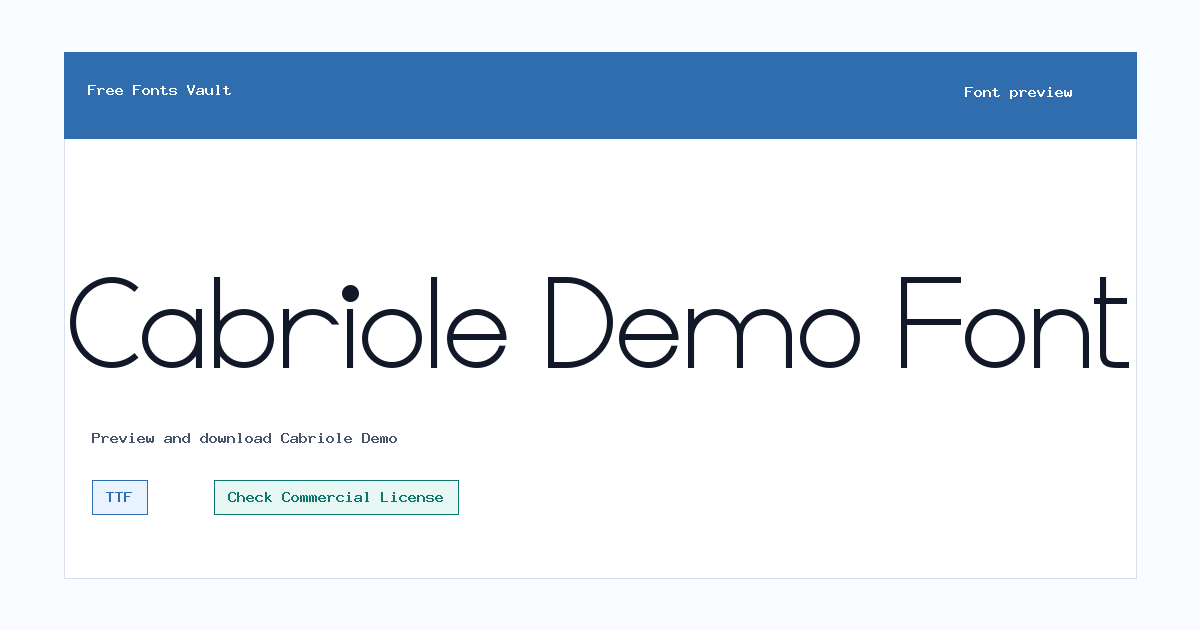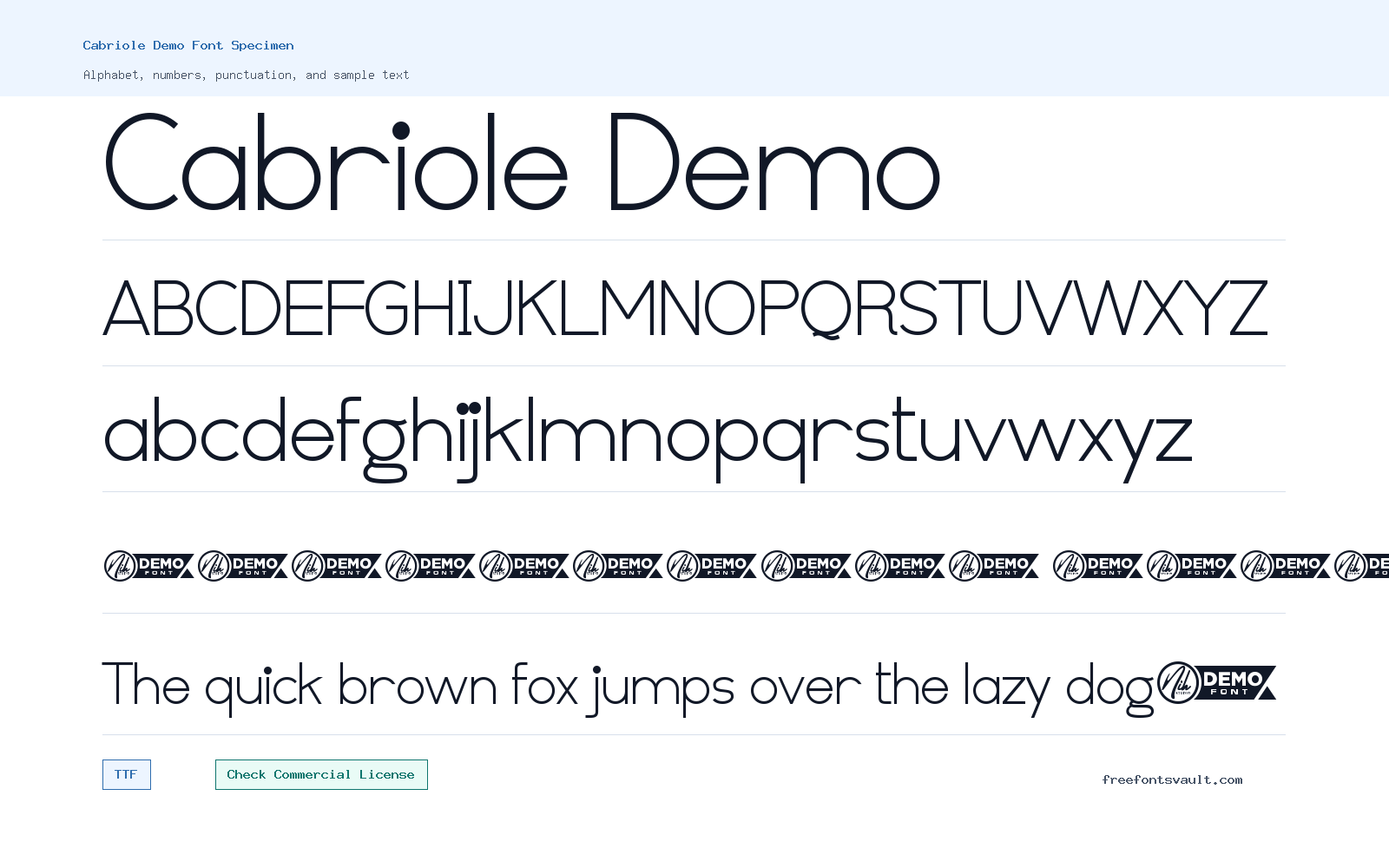
Cabriole Demo
- Designer Widiyanti & Suci Anita
- Foundry NihStudio
Cabriole Demo font.
Cabriole Demo is a TTF font family from NihStudio with regular, italic, and bold styles for personal, non-commercial projects.
About Cabriole Demo
Cabriole Demo gives visitors three practical styles to test: regular, italic, and bold. That makes it more flexible than a single-style demo font because you can preview normal text, emphasis, and stronger headings before deciding whether it fits your design. Use the preview box to check the words you actually plan to use, especially names, titles, short phrases, and punctuation.
The regular style is the safest starting point, while bold can handle stronger titles and italic can add a softer accent. Because this is a demo family, compare the three styles in the preview before using it across a full design. That small check can show whether the shapes hold up in real words, names, and punctuation.
- Supports basic style testing for body text, emphasis, and headline weight before download.
- Testing short titles, display text, and styled typography combinations.
Cabriole Demo is credited to Widiyanti & Suci Anita, with NihStudio listed as the foundry.
Who designed Cabriole Demo?
The font is credited to Widiyanti & Suci Anita, and NihStudio is listed as the foundry.
What should I test before using it?
Preview your exact words, numbers, punctuation, and any accented characters you need. Also compare regular, italic, and bold at the size you plan to use.